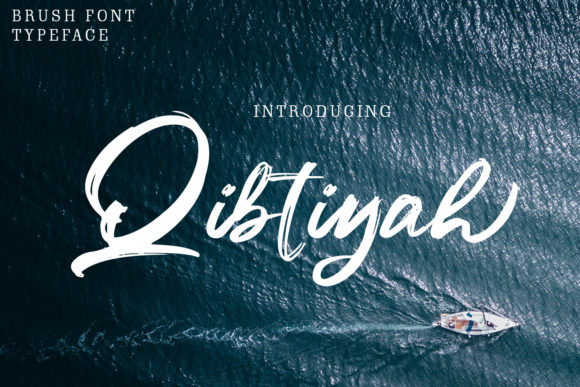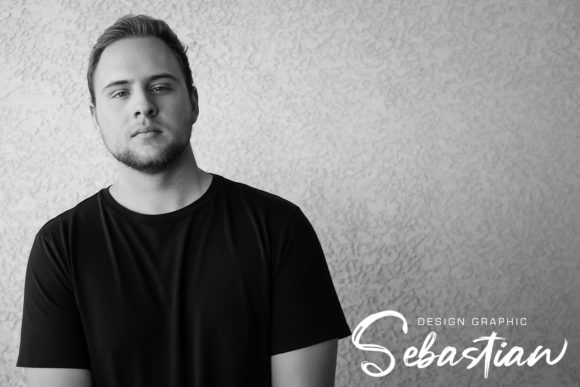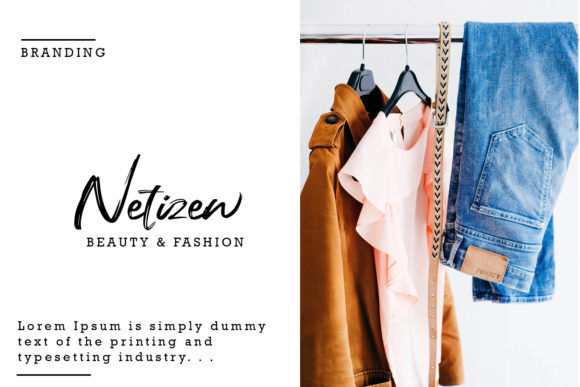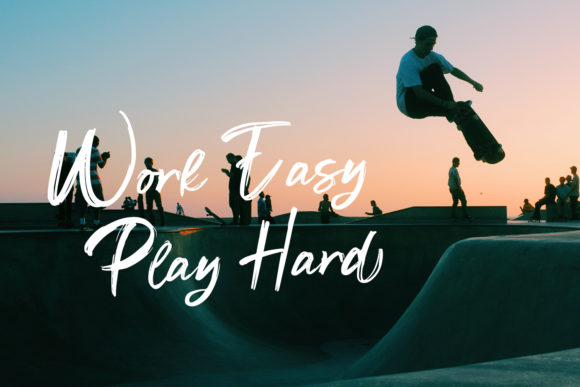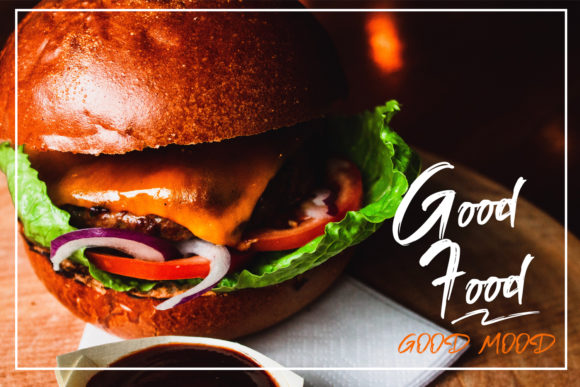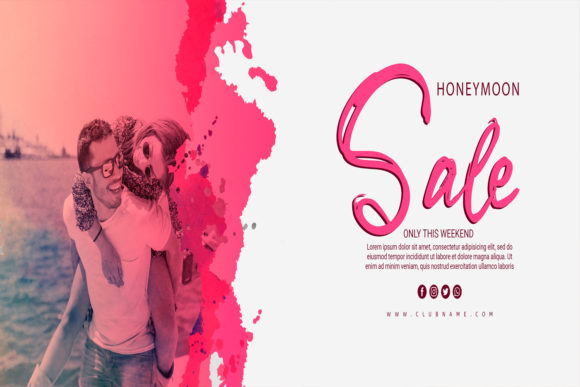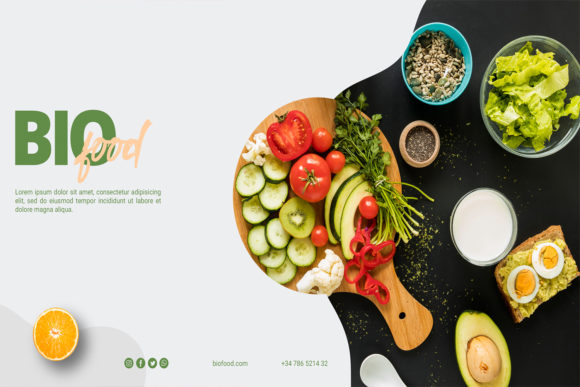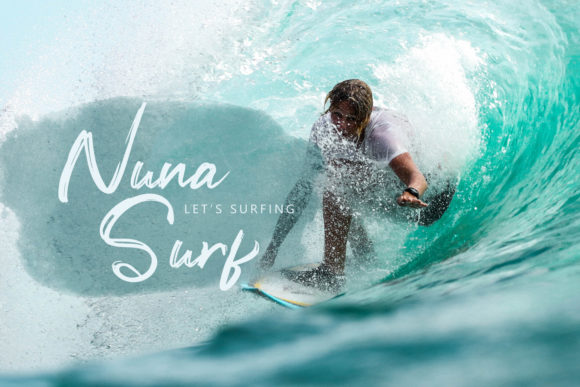
HomeScript FontsQibtiyah Font Script Fonts Qibtiyah Font FacebookXPinterestWhatsApp Qibtiyah Font Poster 2 Qibtiyah Font Poster 3 Qibtiyah Font Poster 4 Qibtiyah Font Poster 5 Qibtiyah Font Poster 6 Qibtiyah Font Poster 7 Qibtiyah Font Poster 8 About Qibtiyah Font Qibtiyah is a sweet and adventurous script that radiates life. Get inspired by its bold look and feel! DOWNLOAD ON CREATIVE FABRICAThis font is sold and delivered by Creative Fabrica. Font Canyon may earn a commission if you buy through this link. People also explored Moshin Font Christmas Font Handmade Font Seilla Script Font Vidiya Font Marlina Tumbler Font Witcher Handwriting Font Pinecone Floral (Complete) Font 338 0 TagsQibtiyah Font Previous articleClana FontNext articleBilal Font LEAVE A REPLY Cancel reply Comment: Please enter your comment! Name:* Please enter your name here Email:* You have entered an incorrect email address! Please enter your email address here Website: Save my name, email, and website in this browser for the next time I comment. Personal Use Free Happy Rabbit Personal Use Free Read more about this font Osaka Personal Use Free Read more about this font Rembank Personal Use Free Read more about this font Baby Cute Personal Use Free Read more about this font BLOG How to Install and Use Fonts on Windows, macOS, and Web Projects How to Install and Use Fonts on Windows, macOS, and Web Projects Fonts are a crucial part of design and branding. Whether you’re designing a... 5 Fonts That Will Dominate Design Trends in 2026 Modern Sans-Serif Fonts That Brands Love in 2025 Free vs Paid Fonts: Why Investing in Premium Fonts Is Worth It